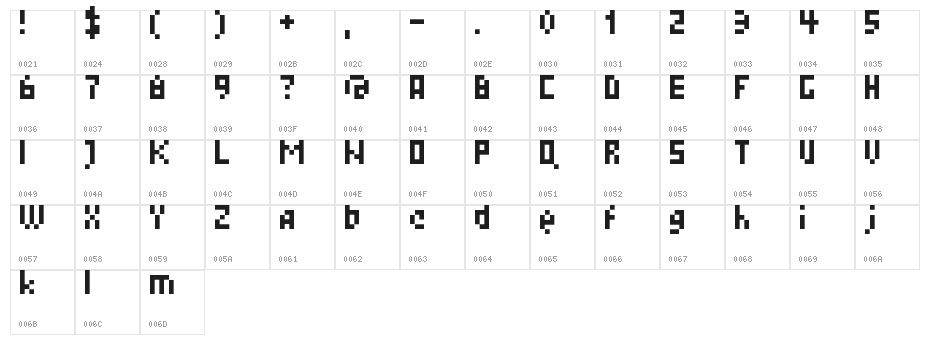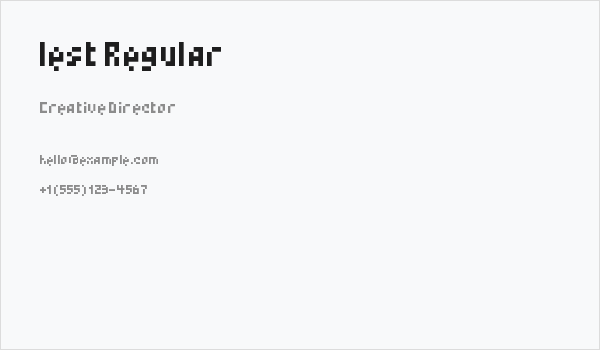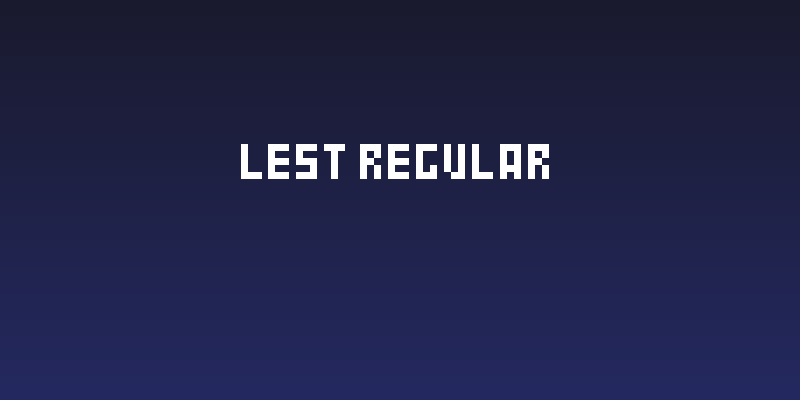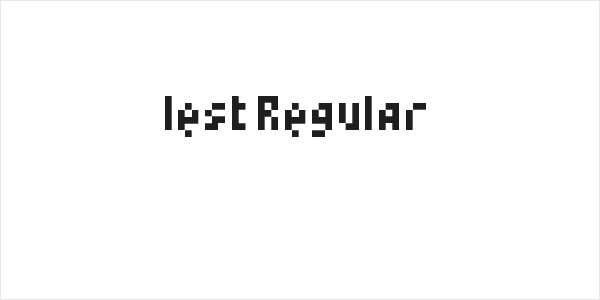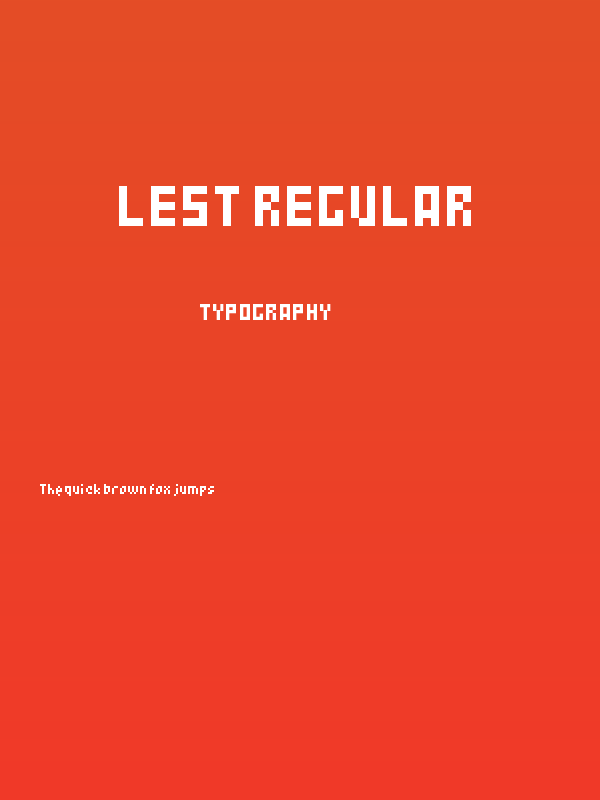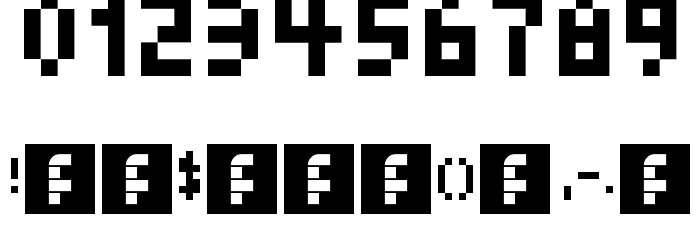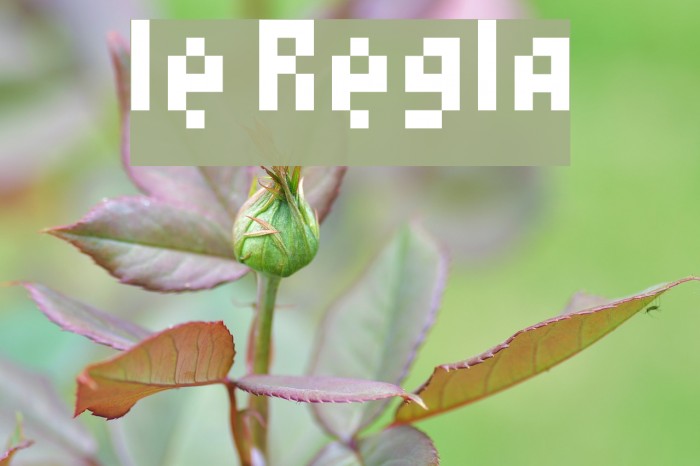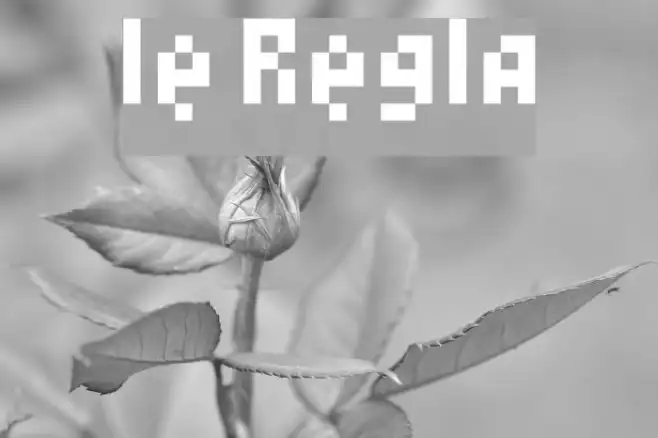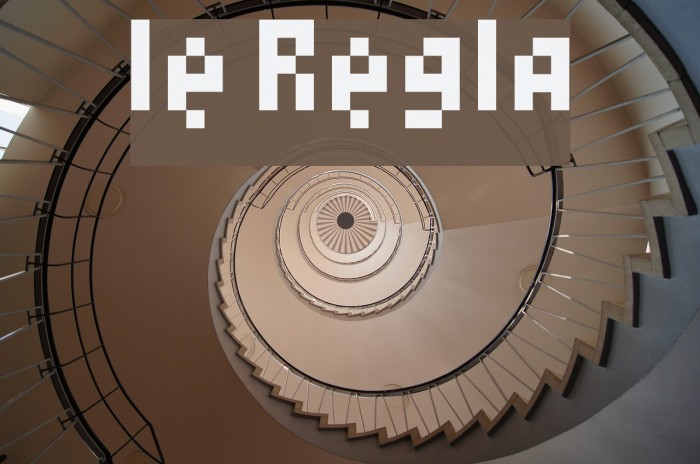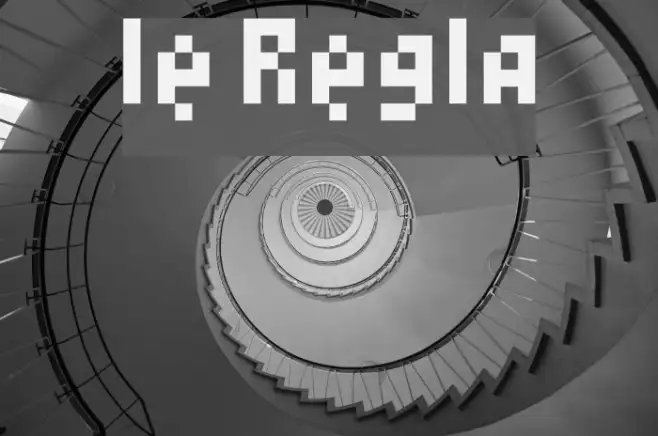
lest Regular Font
lest Regular Description
This font features a bold, pixelated design reminiscent of early digital displays and retro video games. Each character is constructed with a blocky, grid-like structure, giving it a distinctly digital and geometric appearance. The uppercase and lowercase letters maintain a consistent height, emphasizing uniformity and simplicity. Numbers and special characters follow the same pixelated style, ensuring a cohesive look across all elements. The font's design is straightforward, with no curves or embellishments, making it highly legible and suitable for digital-themed projects.
| Overall Style | Retro, Digital |
| Use Case | Logos, Headlines, Posters |
| Proposed Projects | Ideal for retro video game designs, digital art projects, tech-themed posters, and any creative work that requires a nostalgic digital look. |